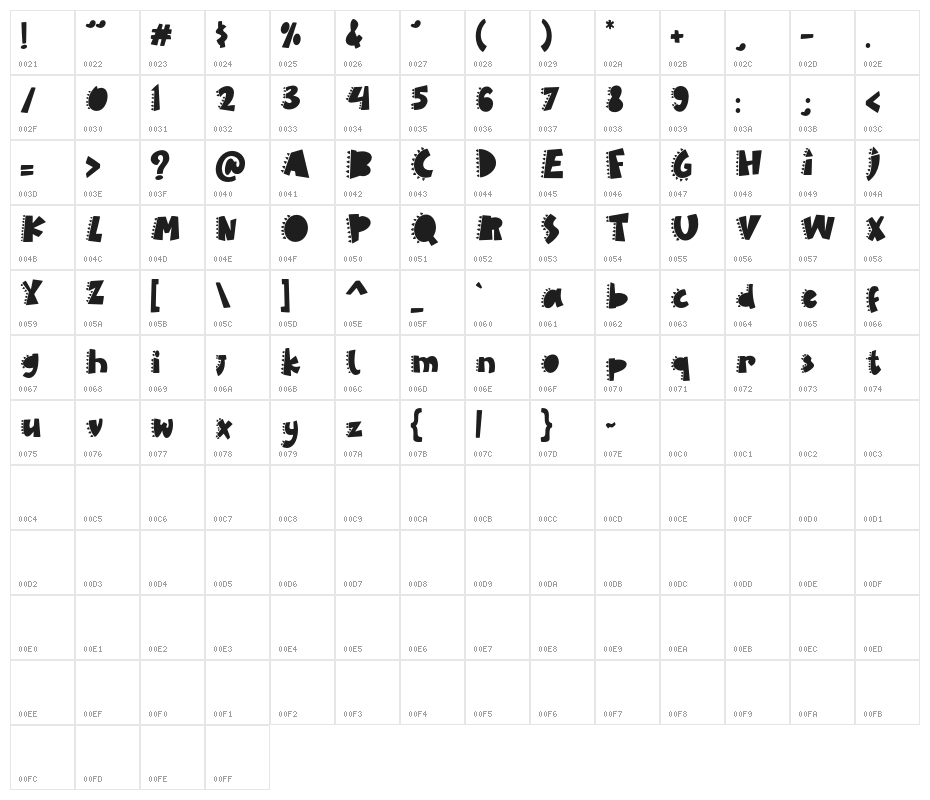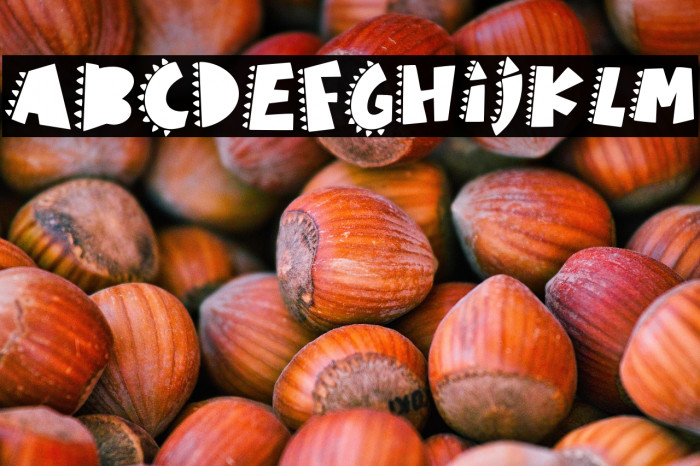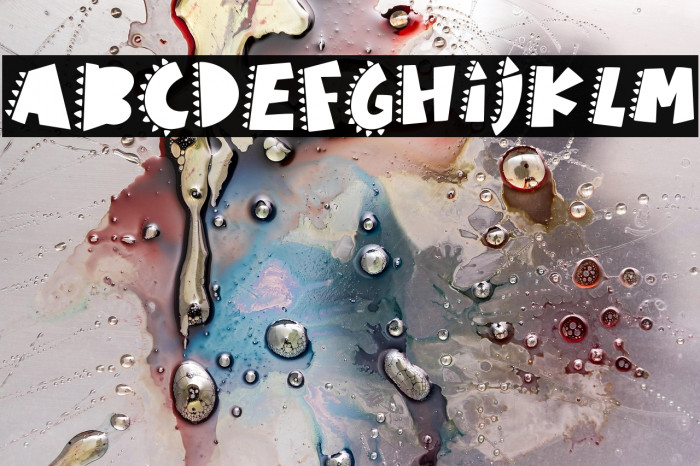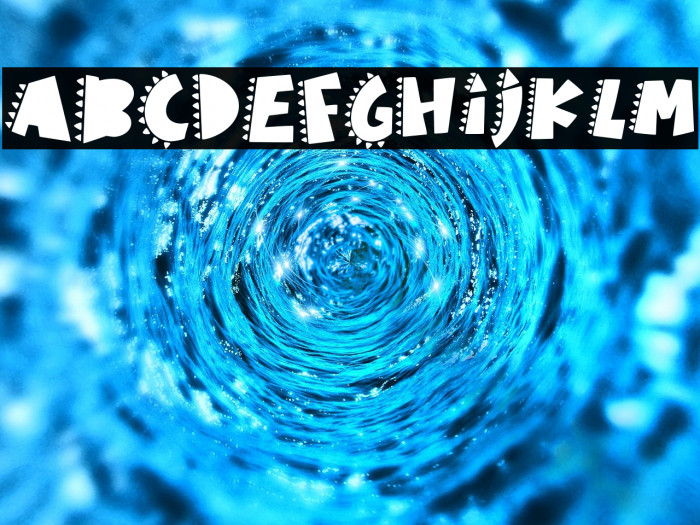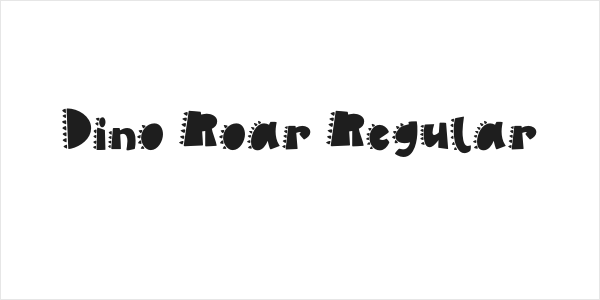
Dino Roar Regular Font
Dino Roar Regular Description
This playful and bold font features a unique design with jagged edges resembling dinosaur spikes, giving it a fun and adventurous feel. The characters are thick and robust, with a whimsical style that captures attention. The uppercase and lowercase letters maintain a consistent theme, with numbers and special characters following suit. The font's quirky and dynamic appearance makes it ideal for projects that require a touch of creativity and excitement.
| Proposed Projects | Ideal for children's books, playful branding, themed party invitations, and educational materials. |